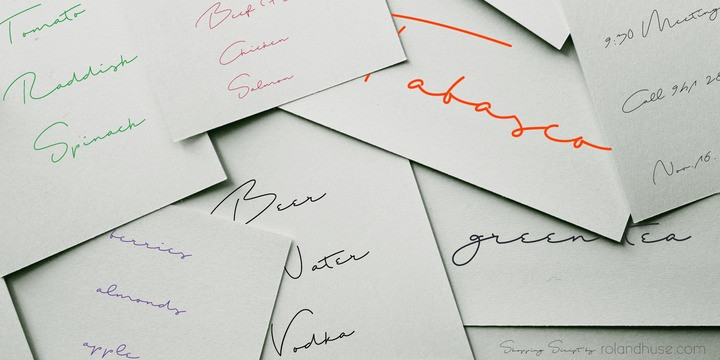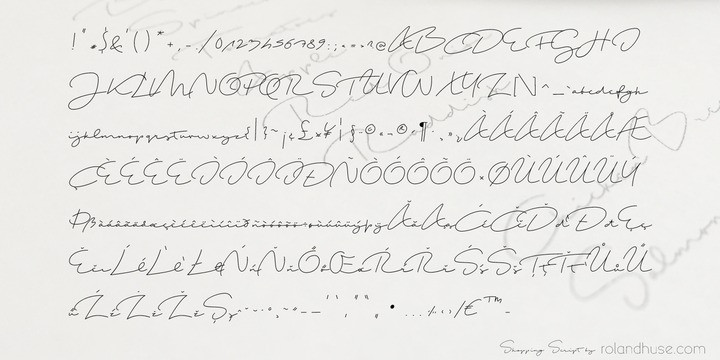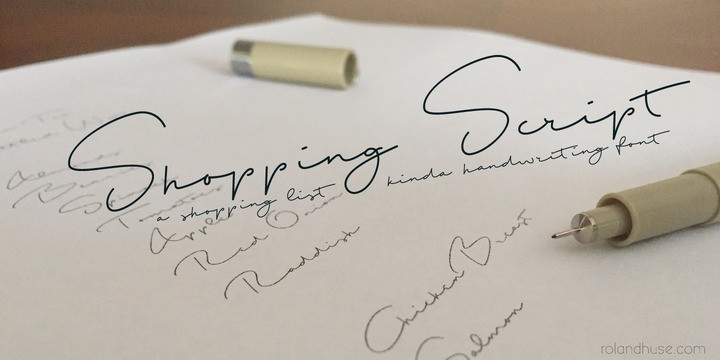
Shopping Script Font
Shopping Script is a casual shopping list – kinda handwriting font with a few ligatures for better flow. (See image gallery) It contains Eastern and Western European latin accents.